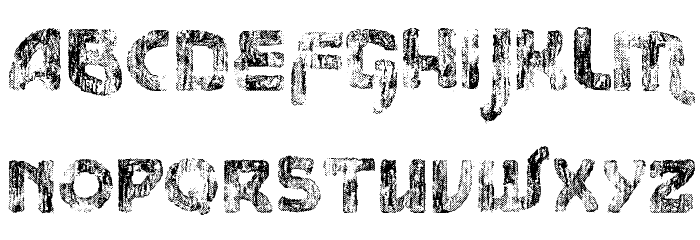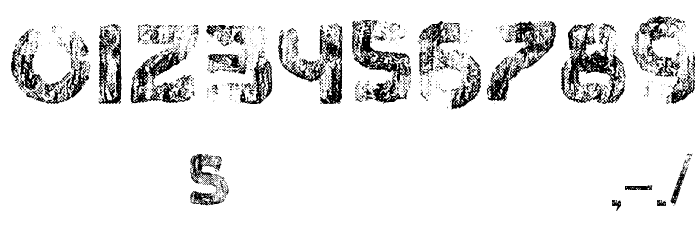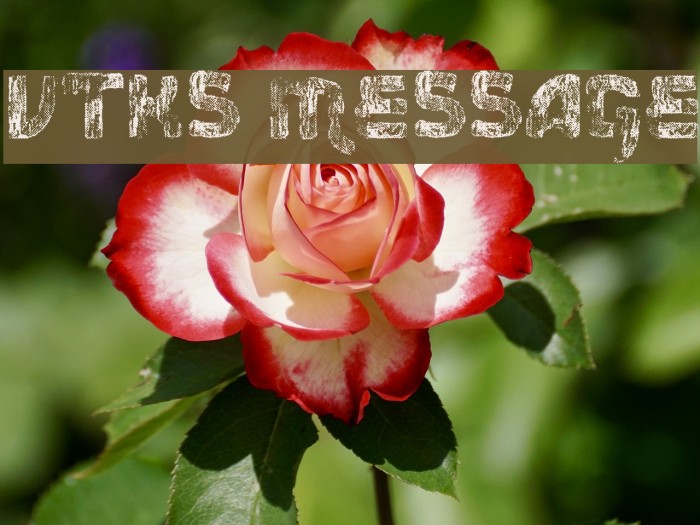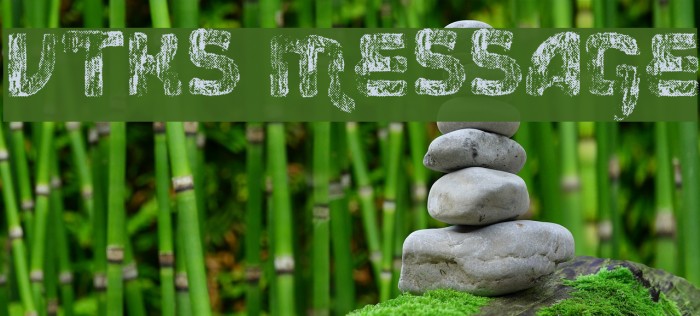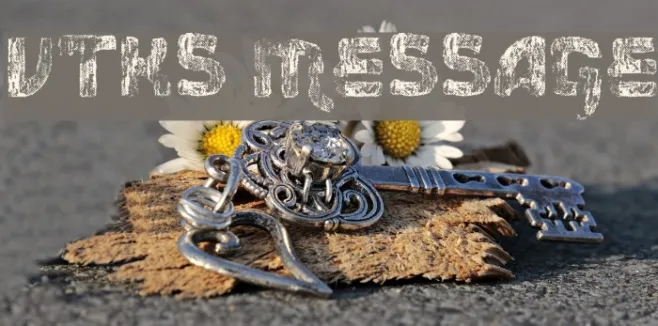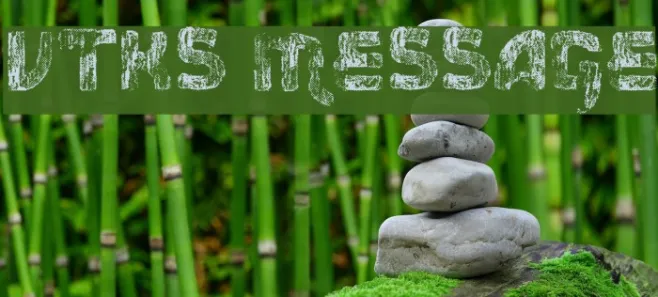
vtks message Font
This font features a distressed, grunge style with a textured appearance that gives it a worn and rugged look. The characters are bold and substantial, with a unique pattern that suggests a sense of age and weathering. The uppercase and lowercase letters maintain a consistent style, while the numbers and special characters complement the overall aesthetic. The font's design is reminiscent of urban street art or vintage signage, making it ideal for projects that require a bold, eye-catching display with a touch of edginess.
A bold, distressed font with a grunge texture and rugged appearance.
- Proposed Projects: Ideal for posters, album covers, urban-themed designs, and vintage-style branding.
- Overall Style: Grunge, Urban, Vintage